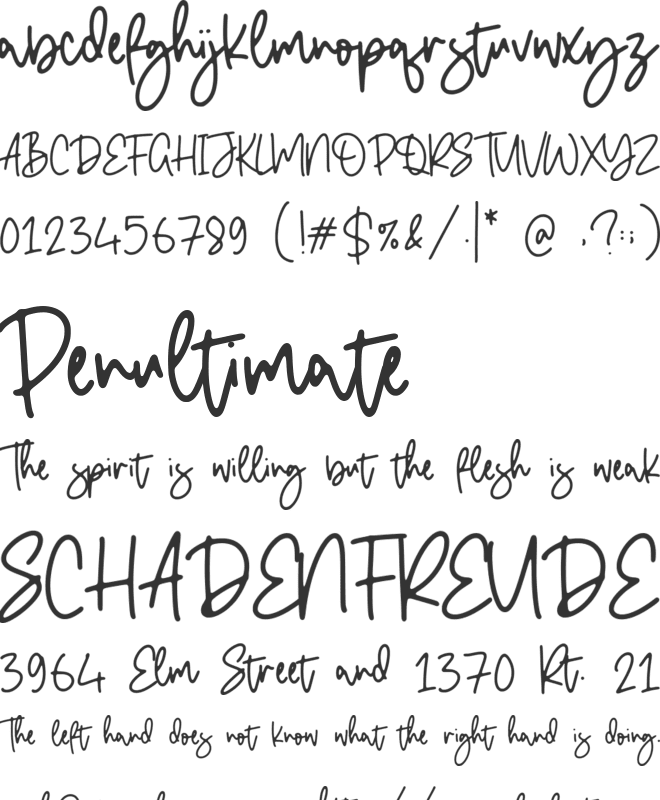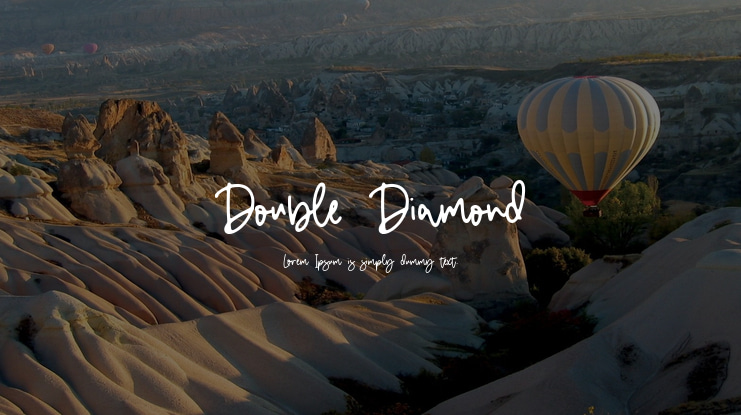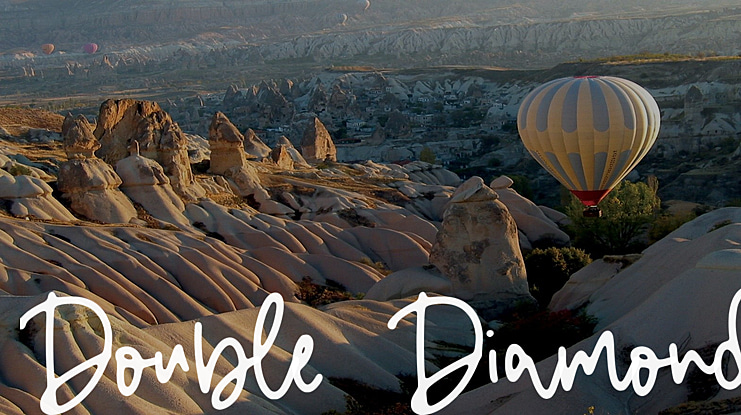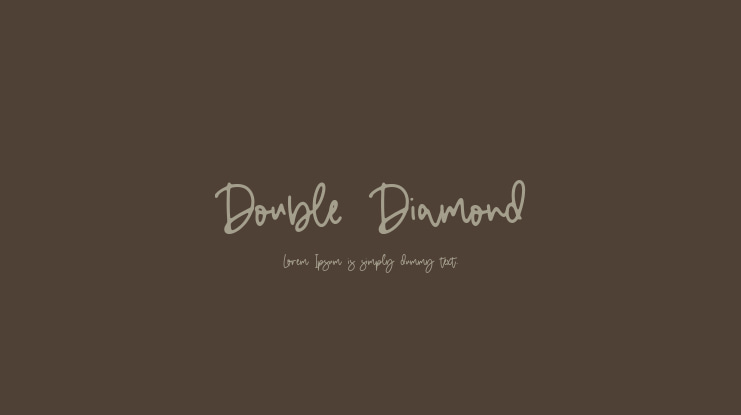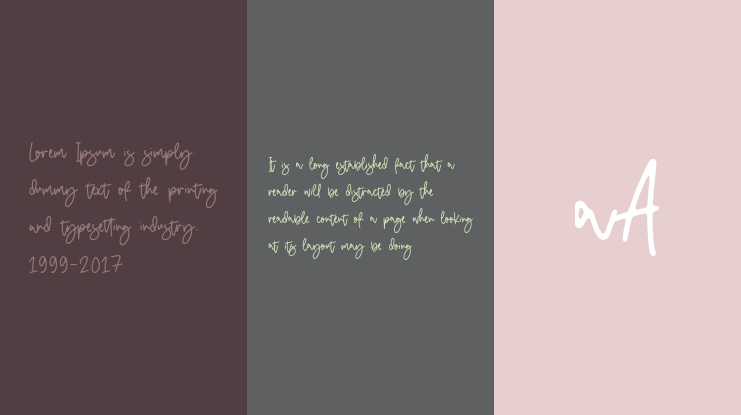
Double Diamond Font
Introducing by Letterative Studio : Double Diamond Font
Double Diamond is a Monoline Handwritten Font
Double Diamond is perfect for product packaging, branding project, megazine, social media, wedding, or just used to express words above the background.
Double Diamond also multilingual support